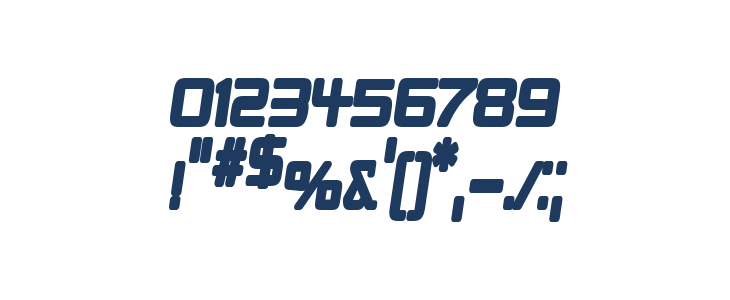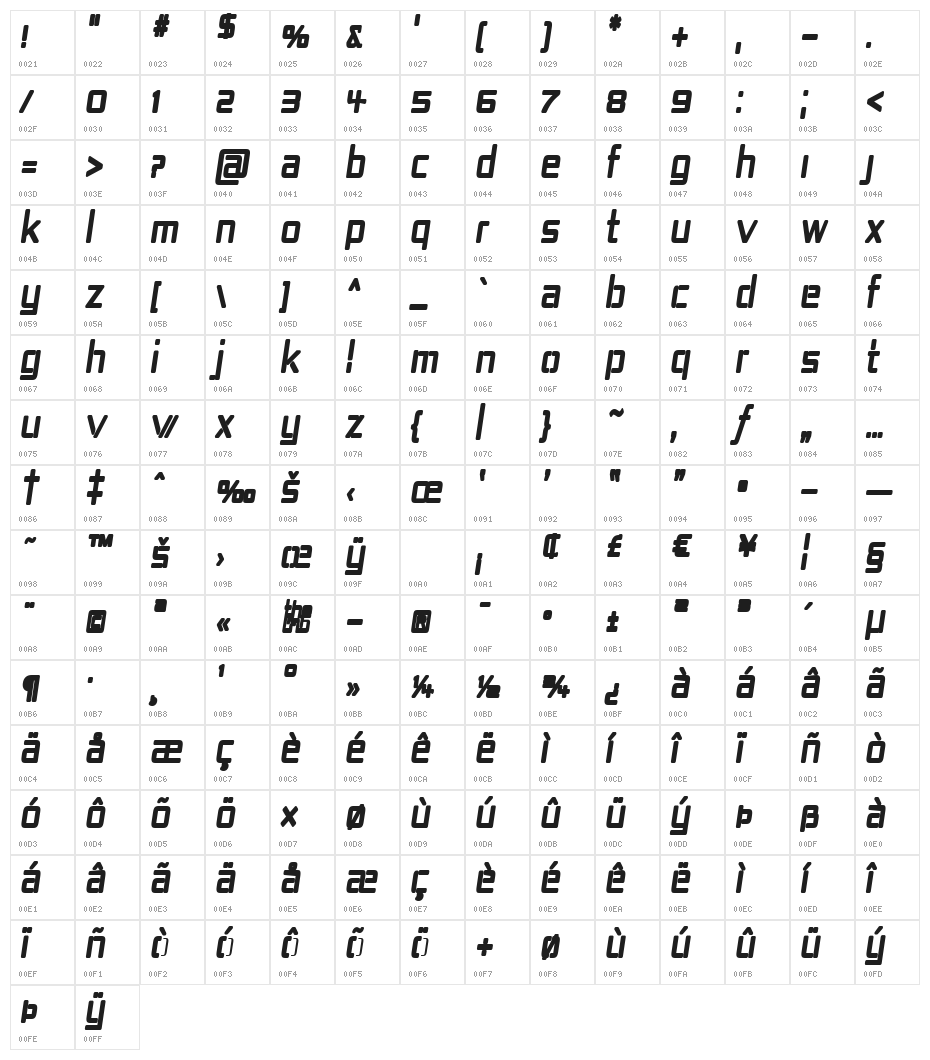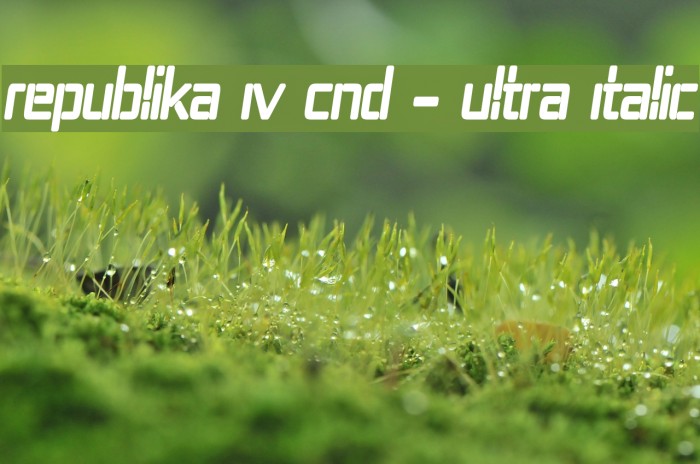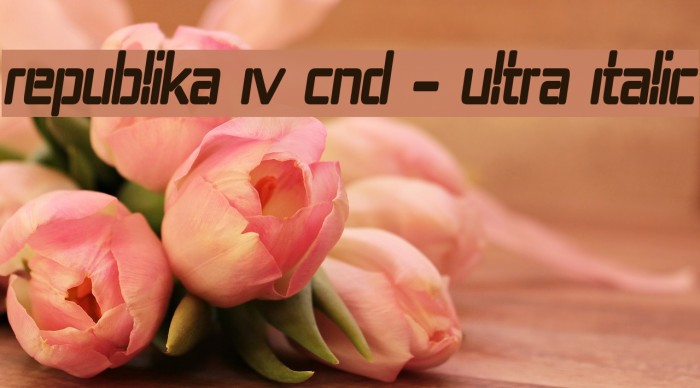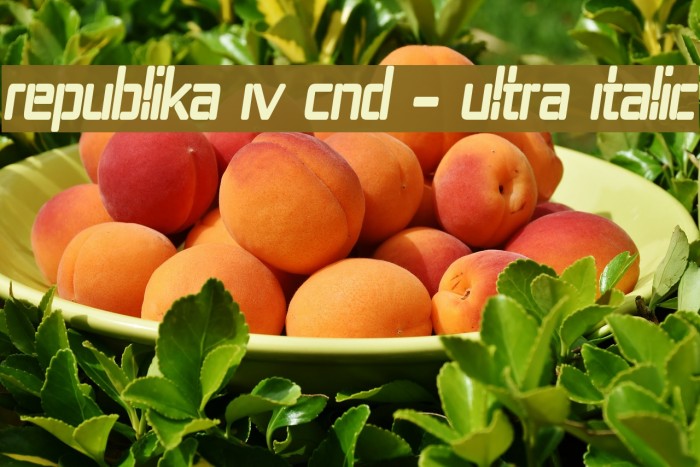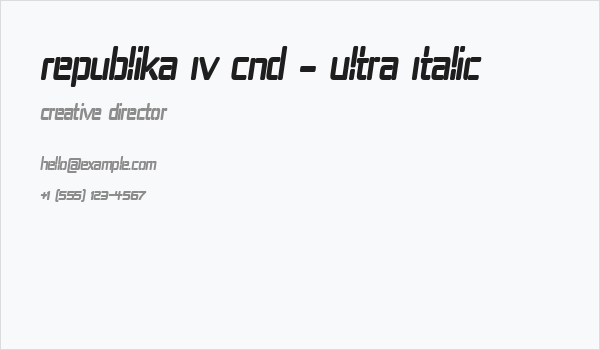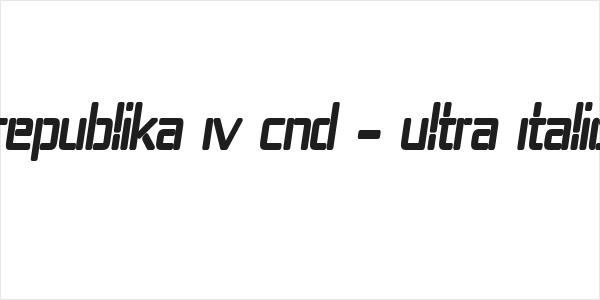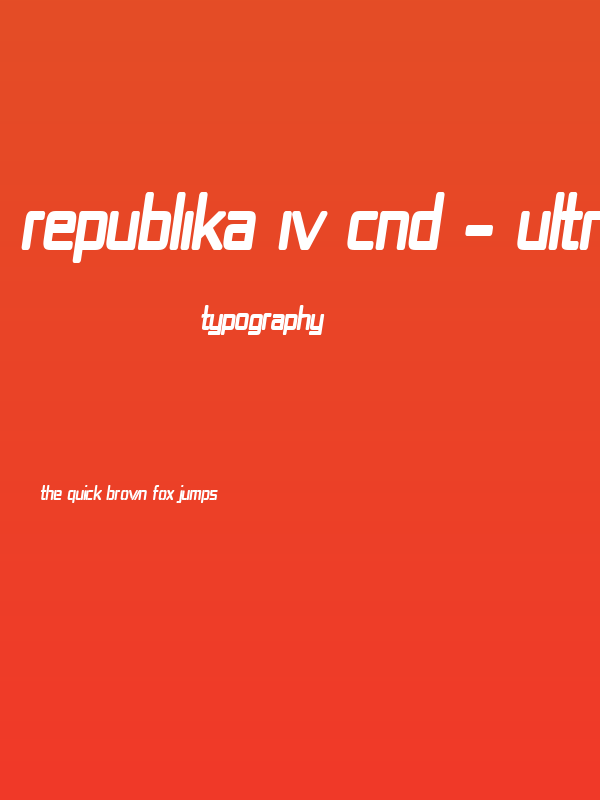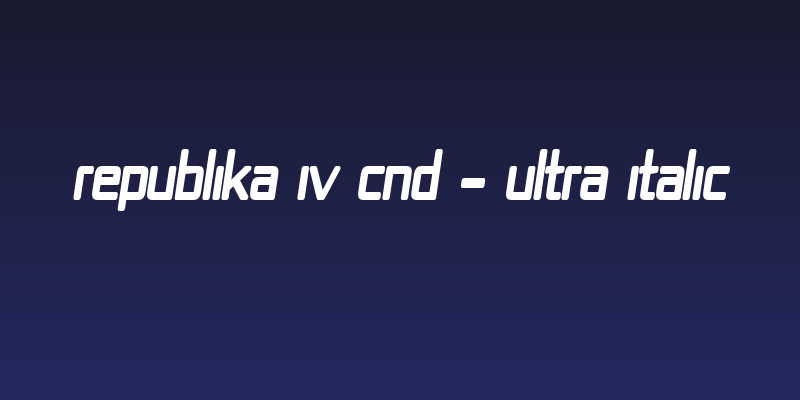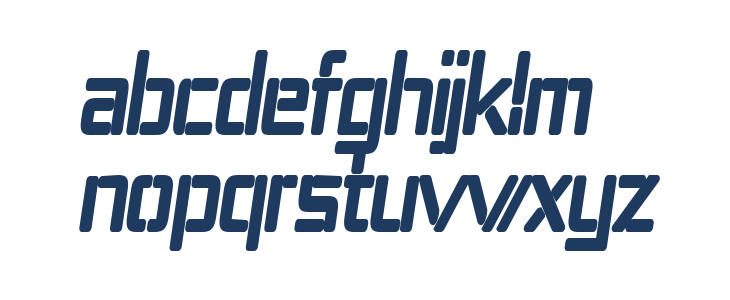
Republika IV Cnd - Ultra Italic Font
Republika IV Cnd - Ultra Italic Description
This font features a bold and ultra-condensed style with a distinctly modern and futuristic appearance. The italic slant adds a dynamic and energetic feel, making it stand out in any design. The characters are tightly spaced, enhancing its compact look. The strokes are consistent in thickness, providing a uniform appearance across all characters. Its geometric shapes and clean lines make it suitable for contemporary projects that require a strong visual impact.
| Proposed Projects | Ideal for technology branding, sports team logos, modern posters, and dynamic headlines. |